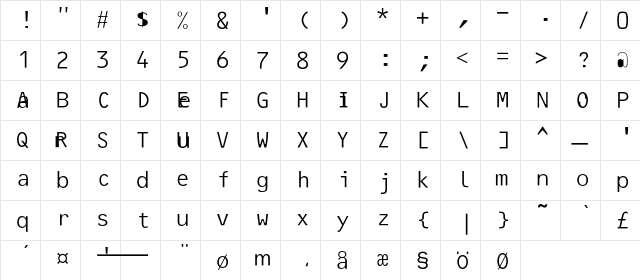
O CROver Font Preview
O CROver
O CROver Font Details
| Style | CROver |
Design Context for O Typeface
O is a composed and adaptable typeface that performs quietly and consistently across a wide range of design contexts.